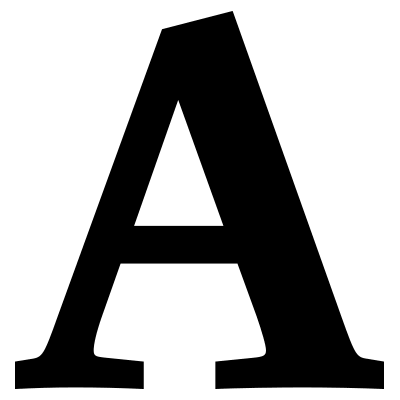
One part of a bicameral script with less ascenders and descenders.
Dutch: kapitaal (typographic), hoofdletter (grammatical) / kapitalen, hoofdletters (plural)
French: capitales
German: Großbuchstaben (Versalien, Majuskeln)
Italian: maiuscolo
Norwegian: Versaler, majuskler
Polish: wersaliki
Spanish: Mayúscula, versal, letra de caja alta
Turkish: Büyük Harf